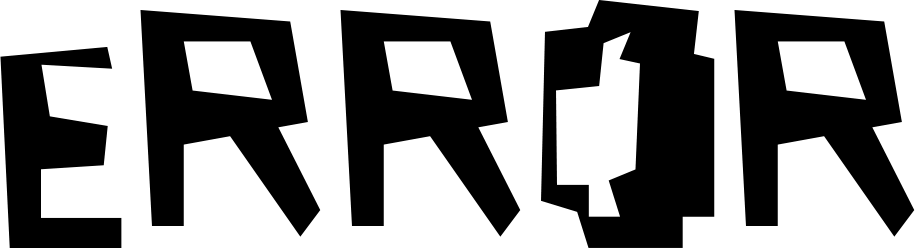
err0r Font
The glitch font with two different versions for making perfect headings is now in your hands. The err0r font with its bold, grunge and unusual style is unreadable. This aggressive bold font is only available in capital l…
The glitch font with two different versions for making perfect headings is now in your hands. The err0r font with its bold, grunge and unusual style is unreadable. This aggressive bold font is only available in capital letters to highlight your typography and make any tattoos, logos, T-shirts, movies, book covers, and other display designs with its deformed appearance.
err0r is a new Glitch style font by Mew Too @ Cannot Into Space Fonts. Public Domain Dedicated and Licensed.